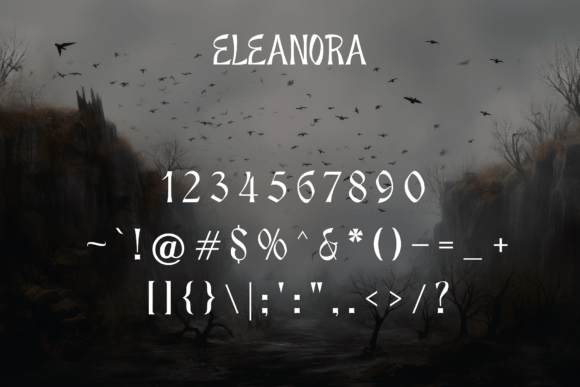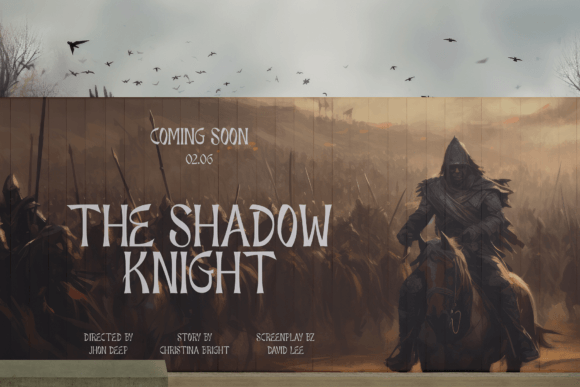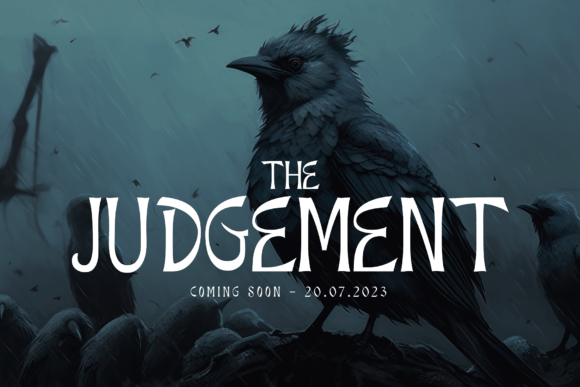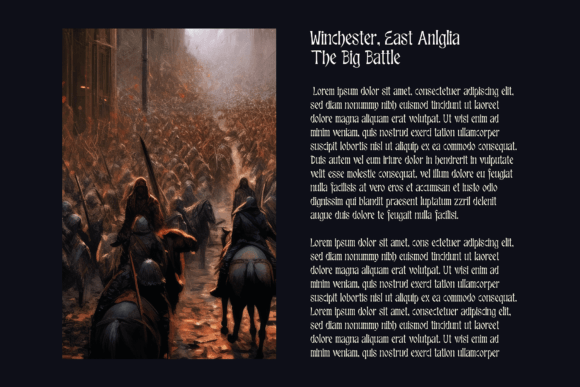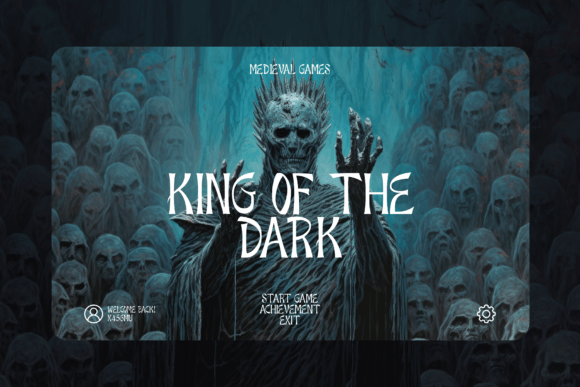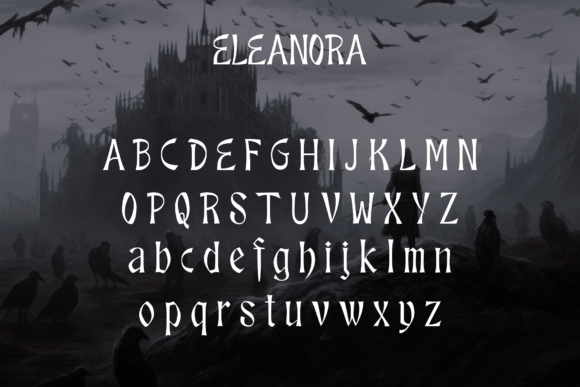
Eloanora Font: Unlocking Enchanting Visual Experiences
Are you a designer or crafter looking to add a touch of medieval mystique to your work? Look no further than the Eloanora Font. This unique and captivating font is perfect for creating enchanting visual experiences that transport your audience to a world of fantasy and wonder.
The Versatility of Eloanora Font
Whether you’re designing invitations for a medieval-themed event, creating fantasy book covers, or adding a touch of medieval mystique to your graphic designs, Eleanora is the key to unlocking an enchanting visual experience. This font is incredibly versatile, making it suitable for a wide range of design projects.
Medieval Aesthetic
Eloanora Font boasts a distinctly medieval aesthetic, with intricate details and ornate lettering that evoke the grandeur of ancient manuscripts and illuminated texts. Its unique design makes it perfect for creating:
- Medieval-themed event invitations
- Fantasy book covers
- Graphic designs that require a touch of medieval mystique
Designing with Eloanora Font
Using Eloanora Font in your designs is easy and intuitive. Here are some tips to get you started:
Pairing with Other Fonts
To create visually striking designs, pair Eloanora Font with complementary fonts that enhance its medieval charm. Some popular font pairing options include:
- Serif fonts for a classic look
- Script fonts for a touch of elegance
- Display fonts for added emphasis
Customization Options
Eloanora Font can be customized to suit your design needs. Experiment with different:
- Font sizes to create visual hierarchy
- Colors to evoke specific emotions or moods
- Textures to add depth and interest
The Benefits of Using Eloanora Font
So why choose Eloanora Font for your design projects? Here are just a few benefits:
Unique and Eye-Catching
Eloanora Font is a one-of-a-kind font that is sure to grab attention. Its unique design makes it perfect for creating designs that stand out from the crowd.
Time-Saving
With Eloanora Font, you can create professional-looking designs in no time. Its easy-to-use design and versatility make it a valuable addition to any design toolkit.
In conclusion, Eloanora Font is a powerful tool for designers and crafters looking to create enchanting visual experiences. Its unique medieval aesthetic, versatility, and ease of use make it perfect for a wide range of design projects. Whether you’re designing invitations, book covers, or graphic designs, Eloanora Font is the key to unlocking a world of fantasy and wonder.